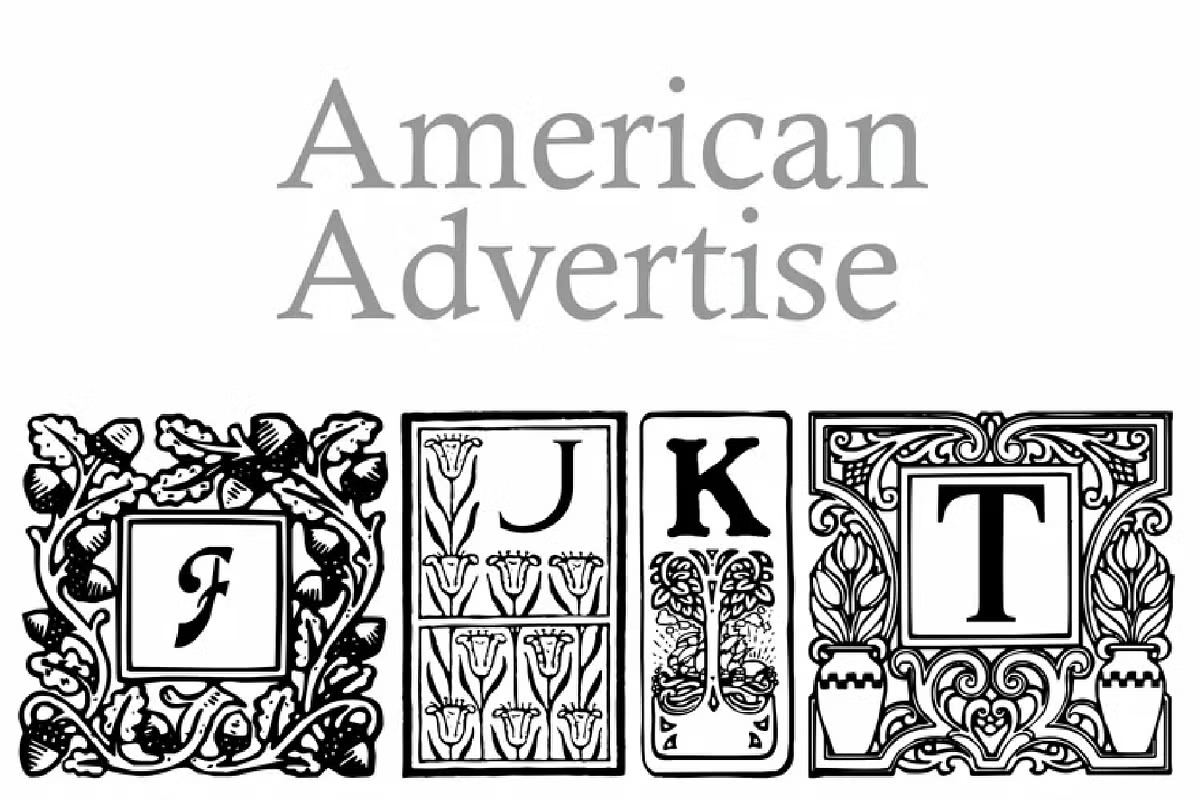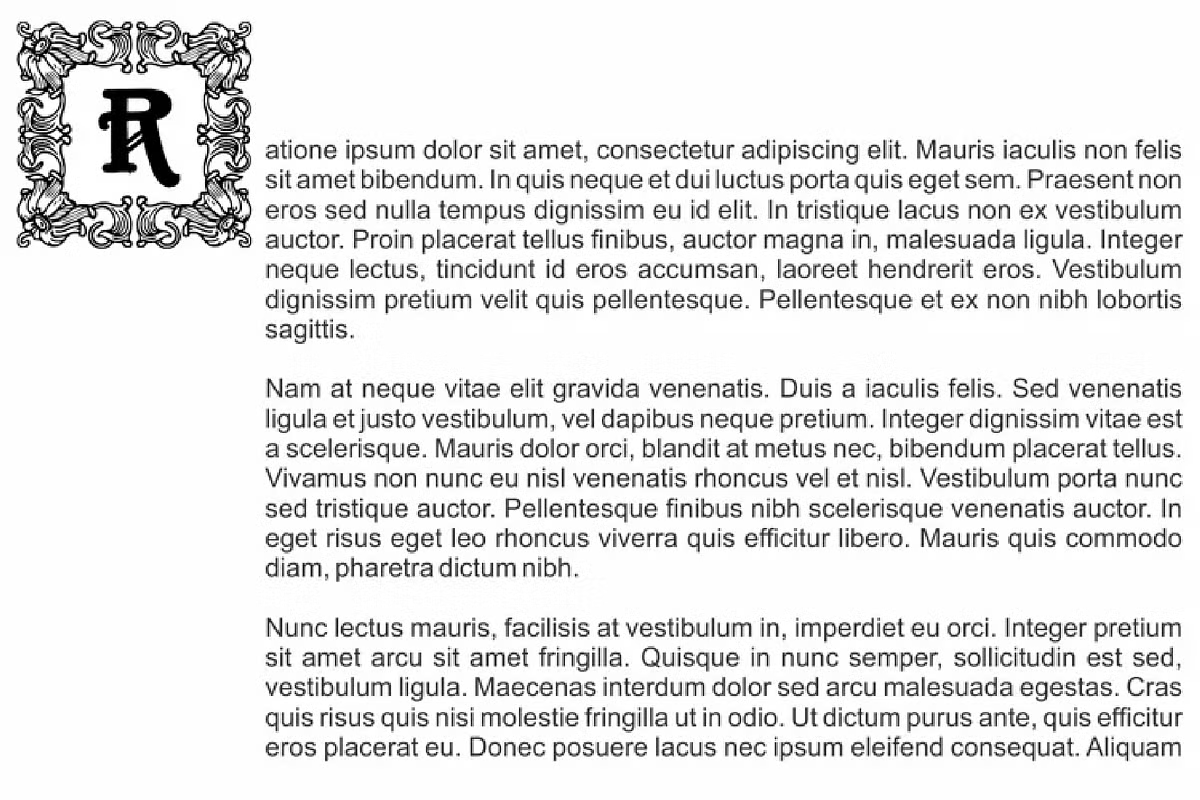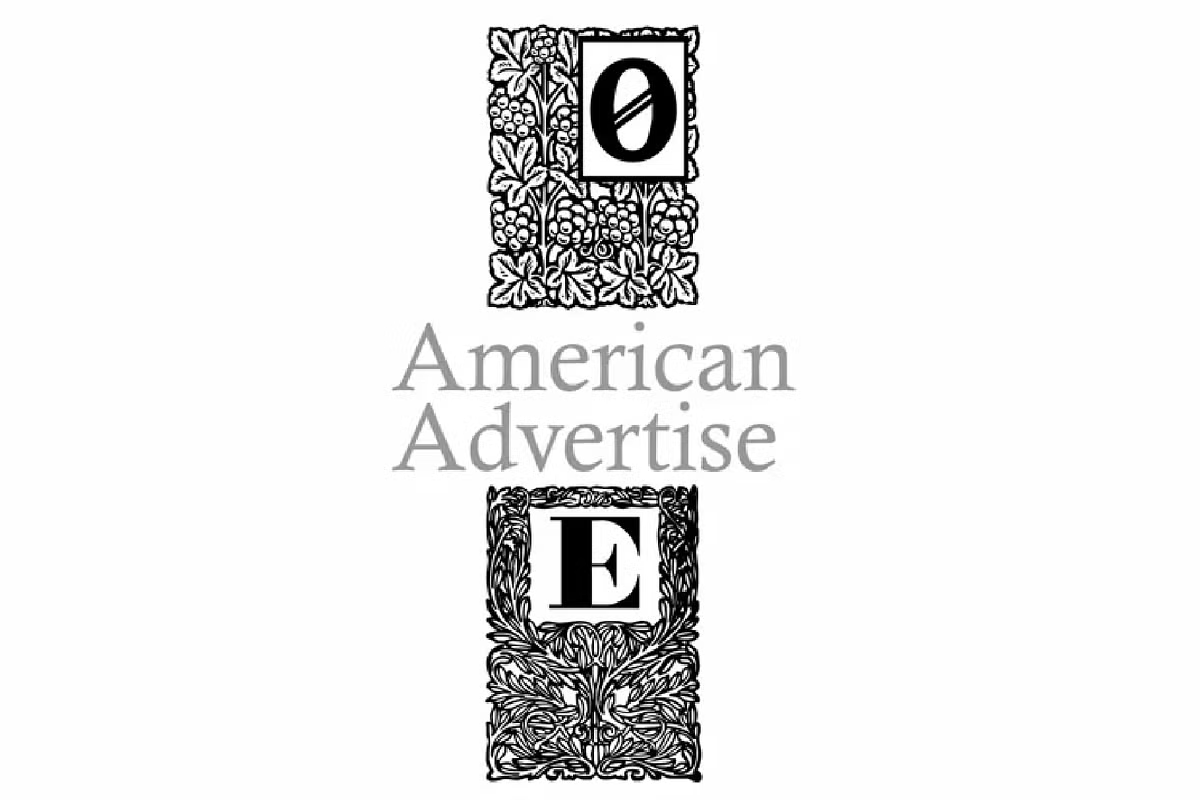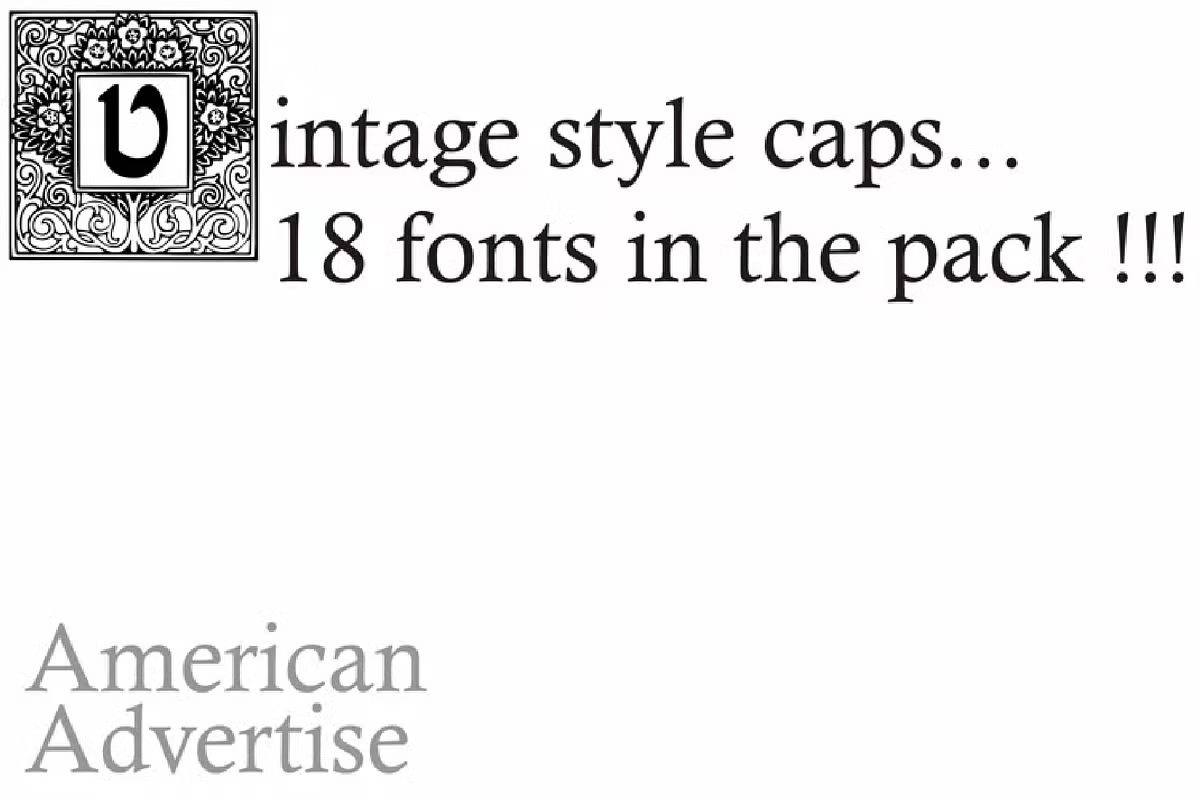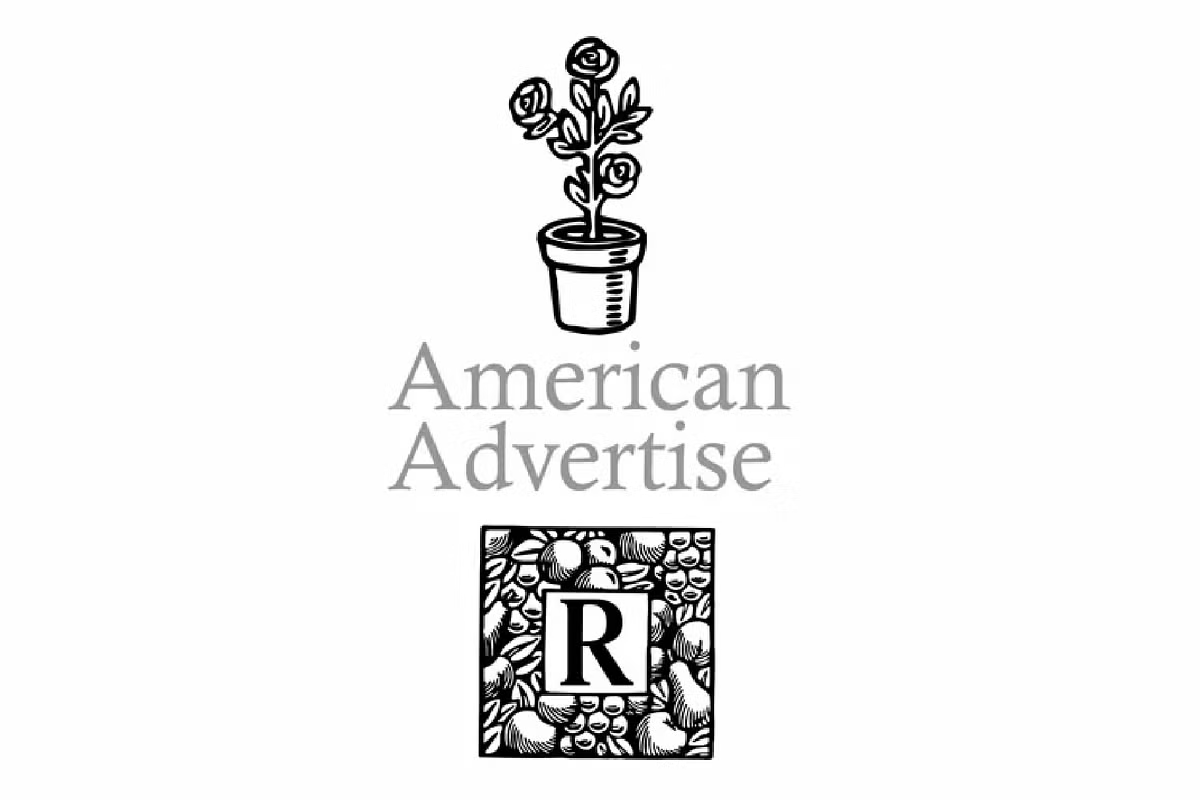
American Advertise
Font Family by Intellecta Design
Each letter is beautifully decorated with square patterns, reminiscent of classic designs from the past. This unique font effortlessly combines modern aesthetics with a nostalgic flair, making it perfect for adding a touch of sophistication to your projects. Its squares with vintage motifs give it a timeless appeal, making it an excellent choice for invitations, logos, and any creative endeavor that seeks to capture a sense of old-world elegance. Embrace the beauty of the past with our exquisite square-patterned decorative font.